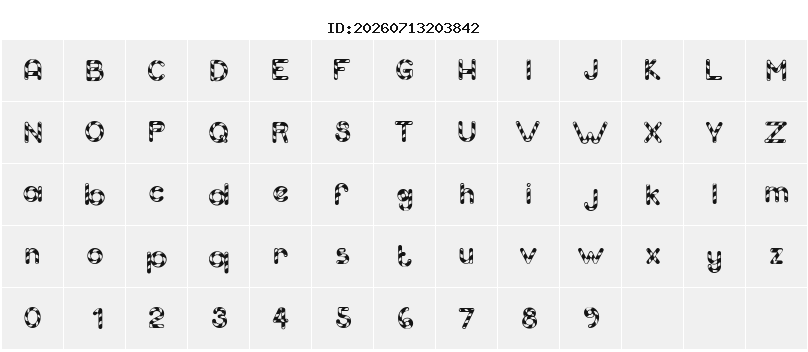
Candy Cane Match Preview
• Font Name: Candy Cane Match
• Font ID: Match Software MB Candy Cane Match
• Full Font Name: Candy Cane Match
• Version: Match Software MB 11/19/96
• PostScript Name: CandyCaneMatch
About Candy Cane Match.ttf
Candy Cane Match.ttf is a modern, elegant sans-serif font designed for ultimate readability and visual harmony. Perfect for branding, headlines, web design, and print materials.